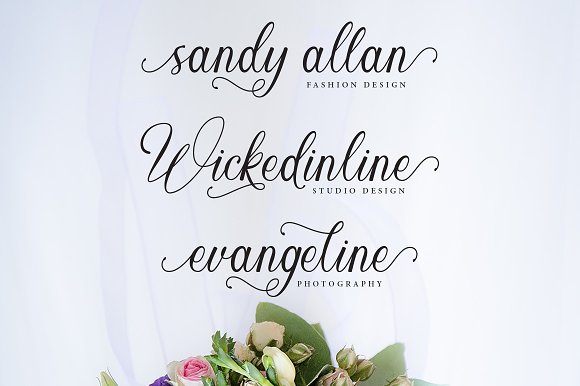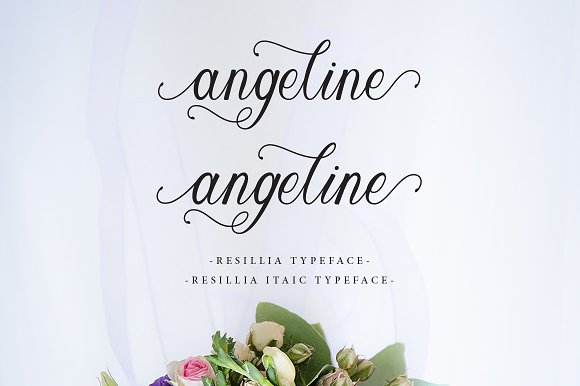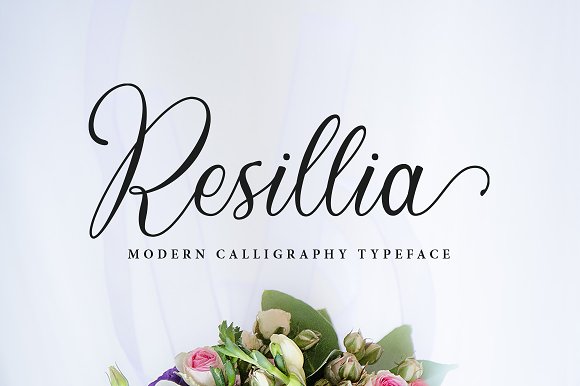
Resillia Script Font
Resillia Script is a modern calligraphy font. Resillia a beautiful for logotype, website header, fashion design,wedding card design and any more. Resillia comes with elegant style and signature style, It also comes as a Resillia font, and a Resillia Italic font. It contains a full set of lower & uppercase letters, a large range of punctuation, numerals, and multilingual support.